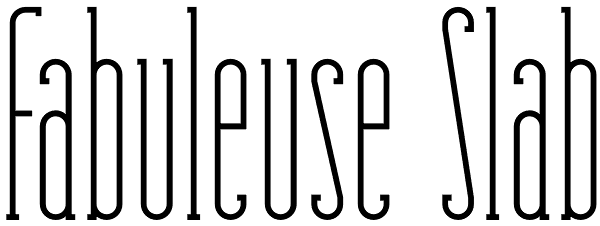
Fabuleuse Slab
Fabuleuse Slab is a one-style font that features a thin, condensed and high cap height and x-height. This gives the font a distinct retro look & bohemian feeling that is great for logos & branding, packaging, titles, magazines, posters, signs...
Fabuleuse Slab Font